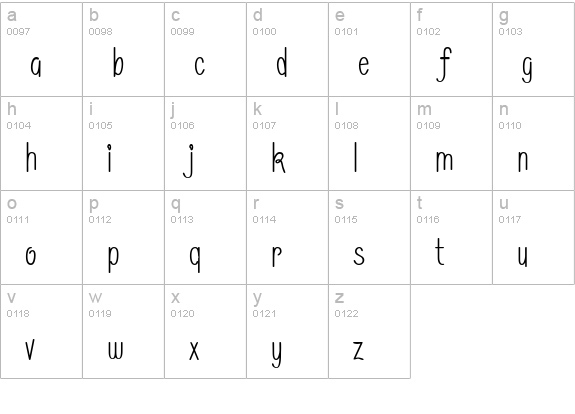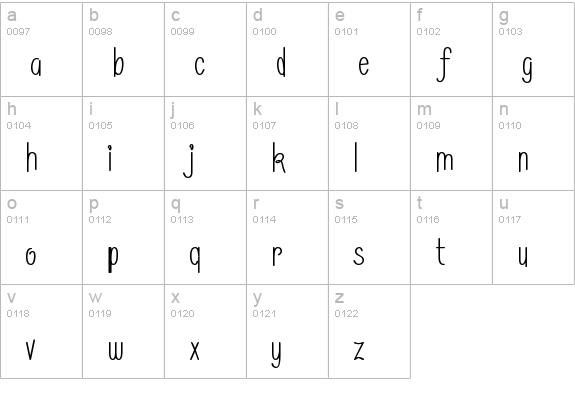
Morning Limerick BTN Cond Lt Font Details
Morning Limerick BTN Cond Lt is a distinctive, condensed-width variant in the Morning typeface family \xE2\x80\x94 well suited to design and typography projects.
Morning Limerick BTN Cond Lt font is a charming and playful typeface that exudes a sense of whimsy and creativity. With its condensed letterforms and light weight, this font is perfect for adding a touch of elegance to your designs while maintaining a sense of fun and informality. Whether you're working on a children's book, a greeting card, or a poster, Morning Limerick BTN Cond Lt will bring a sense of joy and lightheartedness to your project. Best of all, Morning Limerick BTN Cond Lt font is completely free to download at FontsMarket.com. Take advantage of this fantastic offer and enhance your designs with this delightful typeface today!